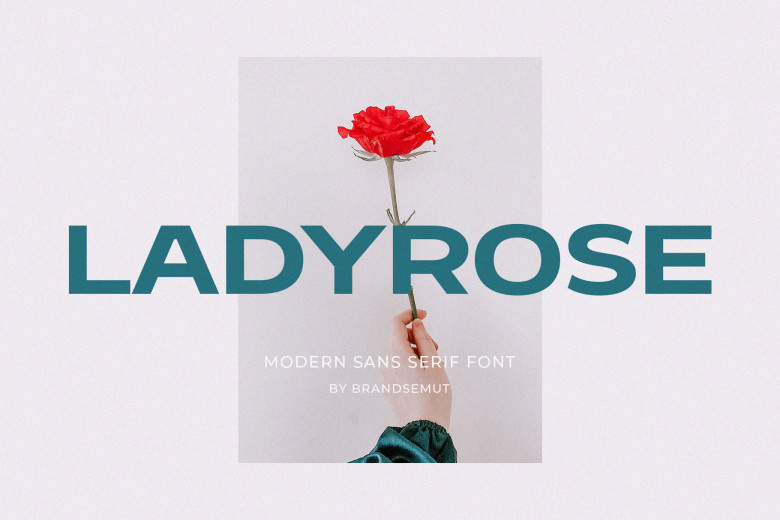
Ladyrose Font
Ladyrose is a sleek and contemporary sans-serif typeface ideal for magazines, product packaging and invitations. With its clean lines and smooth curvatures, Ladyrose adds elegance to any project.
Ladyrose Sans Serif Font